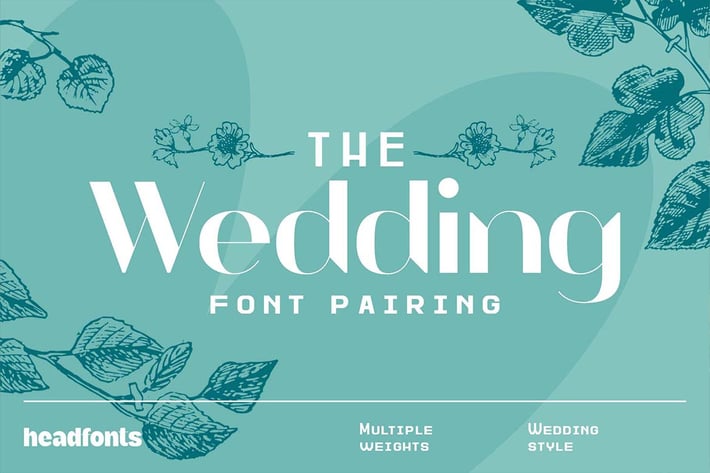
Wedding Font Pairing II
Introducing the Wedding Font Duo, a contemporary, and elegant pair of two fonts with a classy touch. This pairing of fonts is versatile and has a two-faced beauty being a combination of a robust, neat font, RETROHEAD, and a more elegant companion, ARTHEAD , that complement each other perfectly. The Wedding Font Duo offers a typographic harmony wrapped up in flair and elegance. Arhead, the first font of this beautiful pairing is stylish and sophisticated. With its unique, and delicate whisper this font can add a refined twist to any design. The second one, Retrohead is neat and robust with a timeless appeal. Arthead has three weights, while Retrohead stands alone, as a one-weight font.
Wedding Font Duo will provide a memorable style to your wedding-related design projects, such as wedding invitations, menus, labels, wedding photography logos, and much more.
- ARTHEAD Light
- ARTHEAD Regular
- ARTHEAD Bold
- RETROHEAD Regular